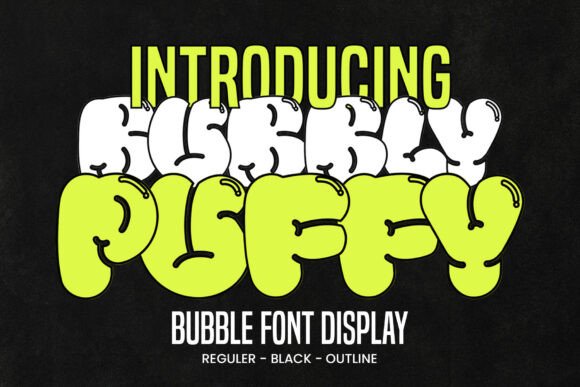
The Ultimate Design Game-Changer: Bubbly Puffy Font
Have you ever been in the middle of a design project, and suddenly, you’re stuck on finding the perfect font? I recall a recent experience where I was working on a fun kids’ party flyer, and my usual go-to fonts just weren’t cutting it. The design needed something bold, playful, and eye-catching. That’s when I stumbled upon the Bubbly Puffy font, and let me tell you, it was love at first sight! 💕
First Impressions: A Bold and Playful Bubble Font
Bubbly Puffy is a bold and playful bubble font that is sure to make your designs pop off the screen! With its soft, inflated curves and comic-style outlines, this font comes in Regular, Black, and Outline styles, making it perfect for a variety of design projects, from kids’ products to party flyers, and anything that needs a loud and fun personality.
- ✨ Versatility: Bubbly Puffy comes in three styles: Regular, Black, and Outline, giving you plenty of options to play with.
- ✅ Ease of use: This font is incredibly easy to use, even for those who are new to design.
- 🎉 Fun and playful vibe: Bubbly Puffy adds a fun and playful personality to any design.
- 💥 Attention-grabbing: This font is sure to grab attention and make your designs stand out.
While Bubbly Puffy is an amazing font, there are a few things to keep in mind: 🤔
- ⚠️ Legibility at small sizes: Like many bubble fonts, Bubbly Puffy can be a bit tricky to read at very small sizes.
- ⚠️ Overuse: Because it’s so fun and playful, it’s easy to overuse Bubbly Puffy. Make sure to balance it with other fonts for a cohesive look.
Exploring Alternatives: Similar Fonts to Bubbly Puffy
The Story Behind Bubbly Puffy: Designer Inspiration
The Bubbly Puffy font was created with the intention of bringing a fun, playful vibe to designs. Inspired by retro comic books and bubble-style lettering, the designer aimed to craft a font that would add volume and attitude to every letter. Whether you’re going for a Y2K aesthetic, a retro poster look, or a playful branding style, Bubbly Puffy is sure to deliver.
Q: What type of designs is Bubbly Puffy best suited for?
A: Bubbly Puffy is perfect for eye-catching headers, kids’ products, party flyers, and any design that needs a loud and fun personality.
Q: Does Bubbly Puffy support OpenType features?
A: Yes, Bubbly Puffy supports OpenType features, allowing you to access additional glyphs and stylistic alternates.